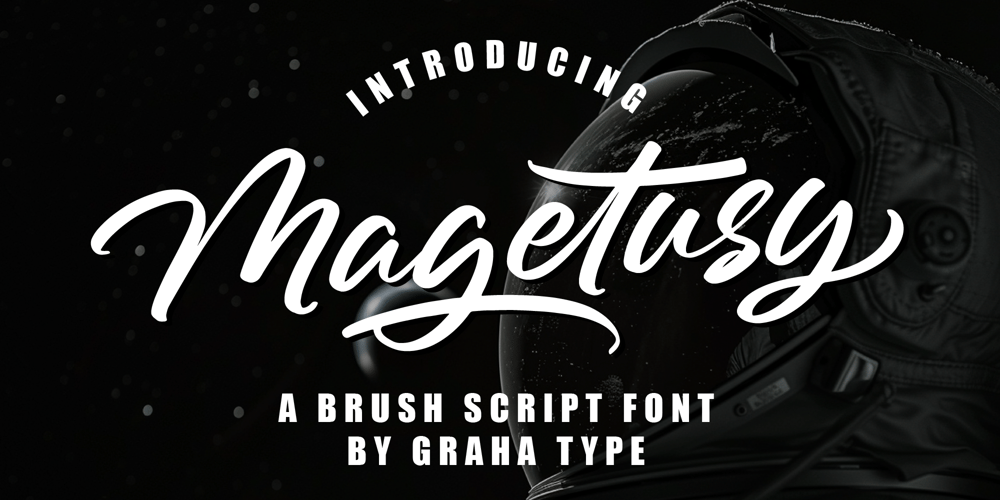
Magetusy Font Family was designed by Toni Nugraha and published by Graha Type. Magetusy contains 1 styles and family package options. Magetusy is an modern brush script font, perfect for branding, logotypes, and posters. With its dynamic hand lettered strokes, this font adds warmth and character to your designs. Featuring OpenType capabilities, including alternates and ligatures, Magetusy offers flexibility and variation for a more harmonious appearance. It’s an ideal choice for creating captivating brand identities and other creative projects.Whats Included :Standard GlyphsAlternates and LigaturesPUA Encoded CharactersMultilingual SupportFeel free to email us at grahatype@gmail.com if you have any questions or require assistance. We look forward to helping you with your design needs!